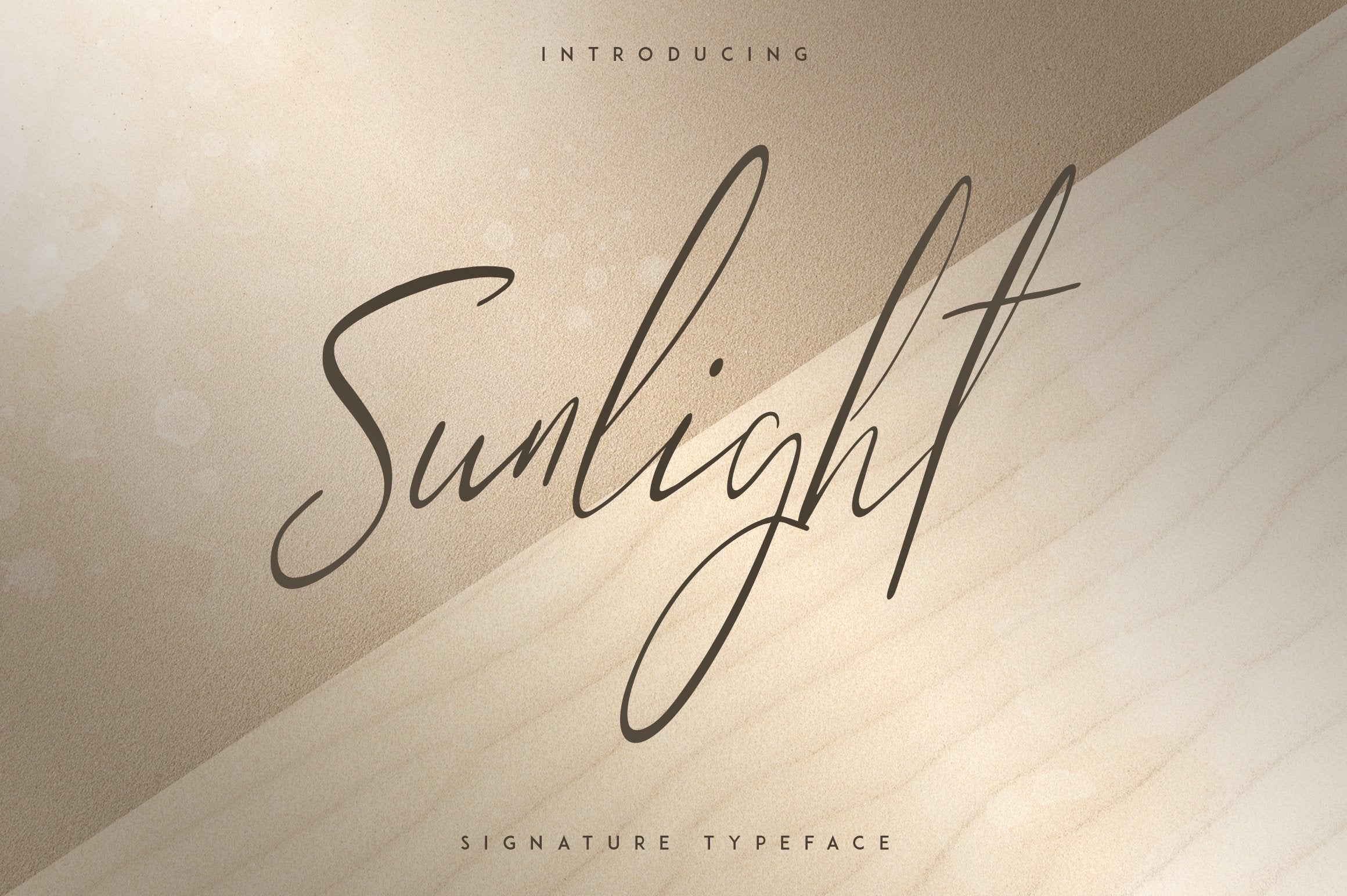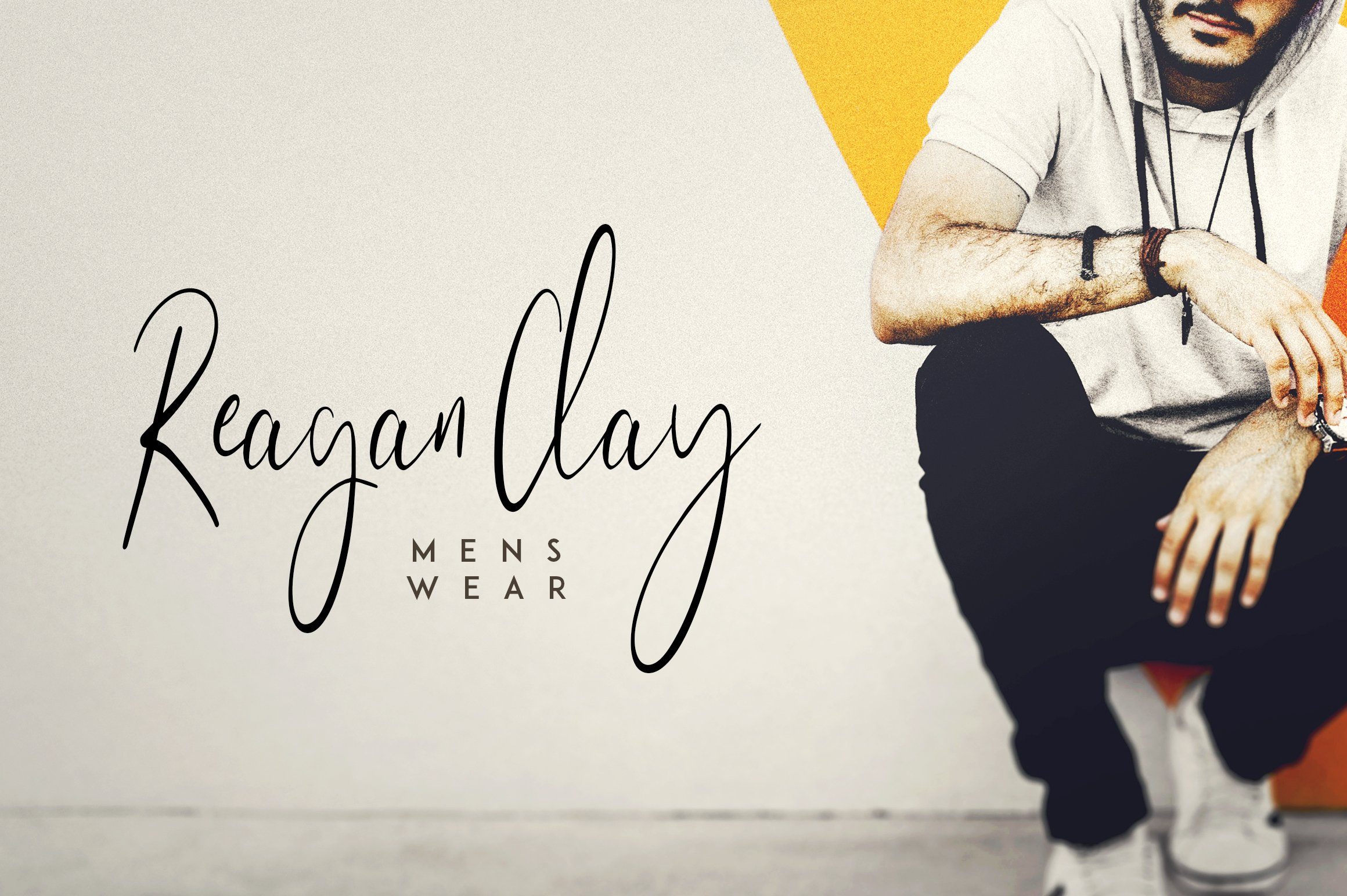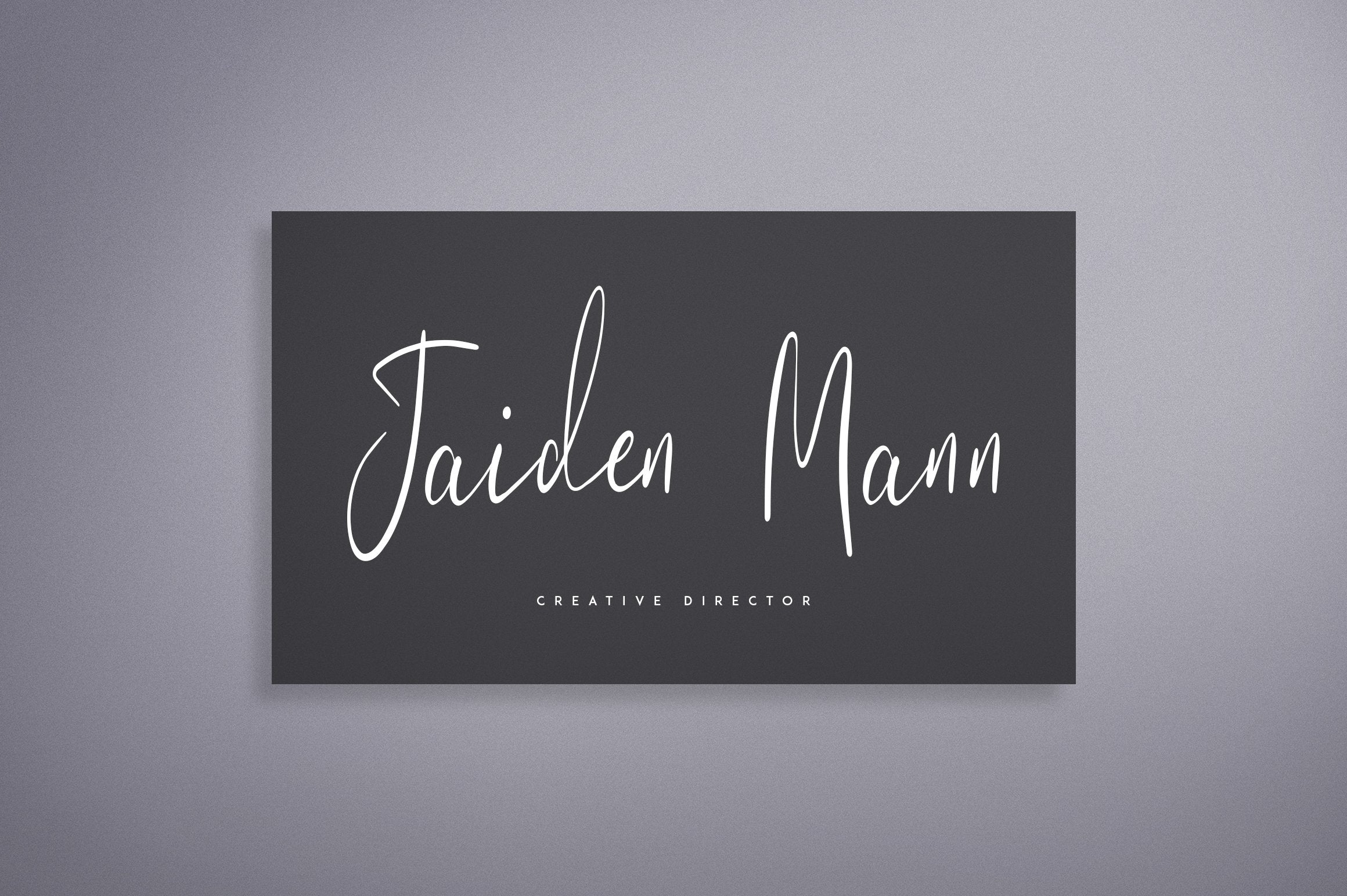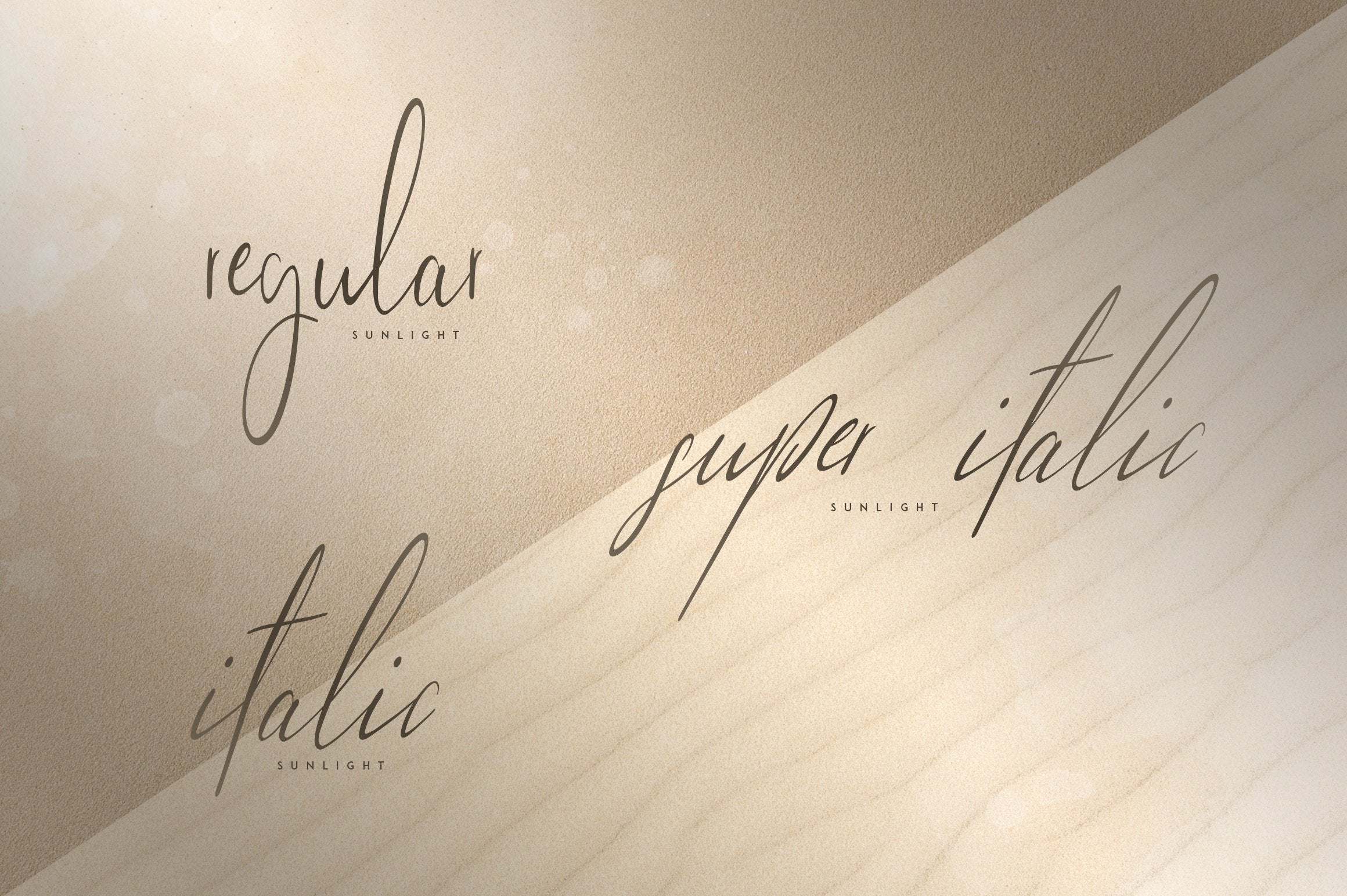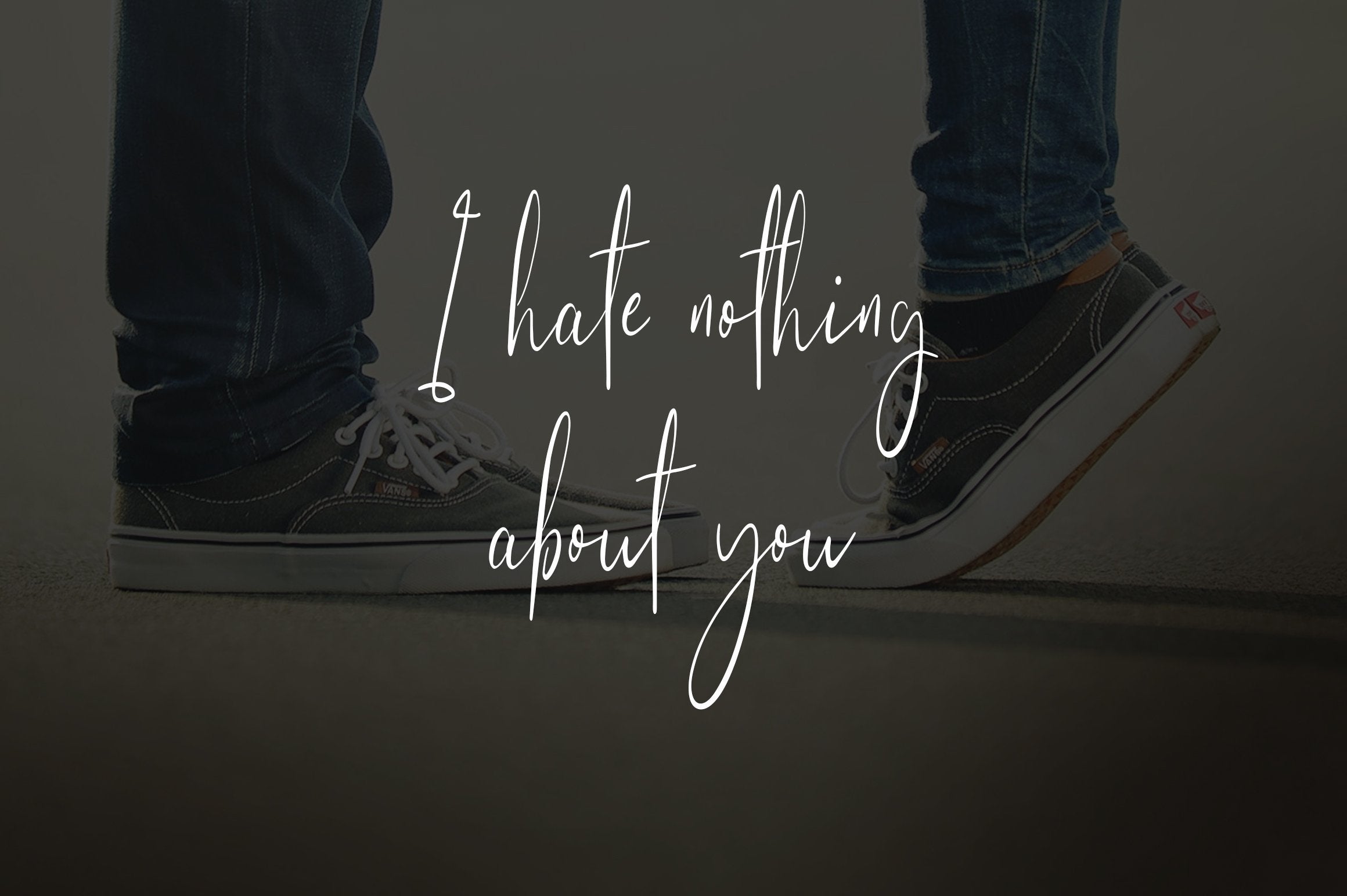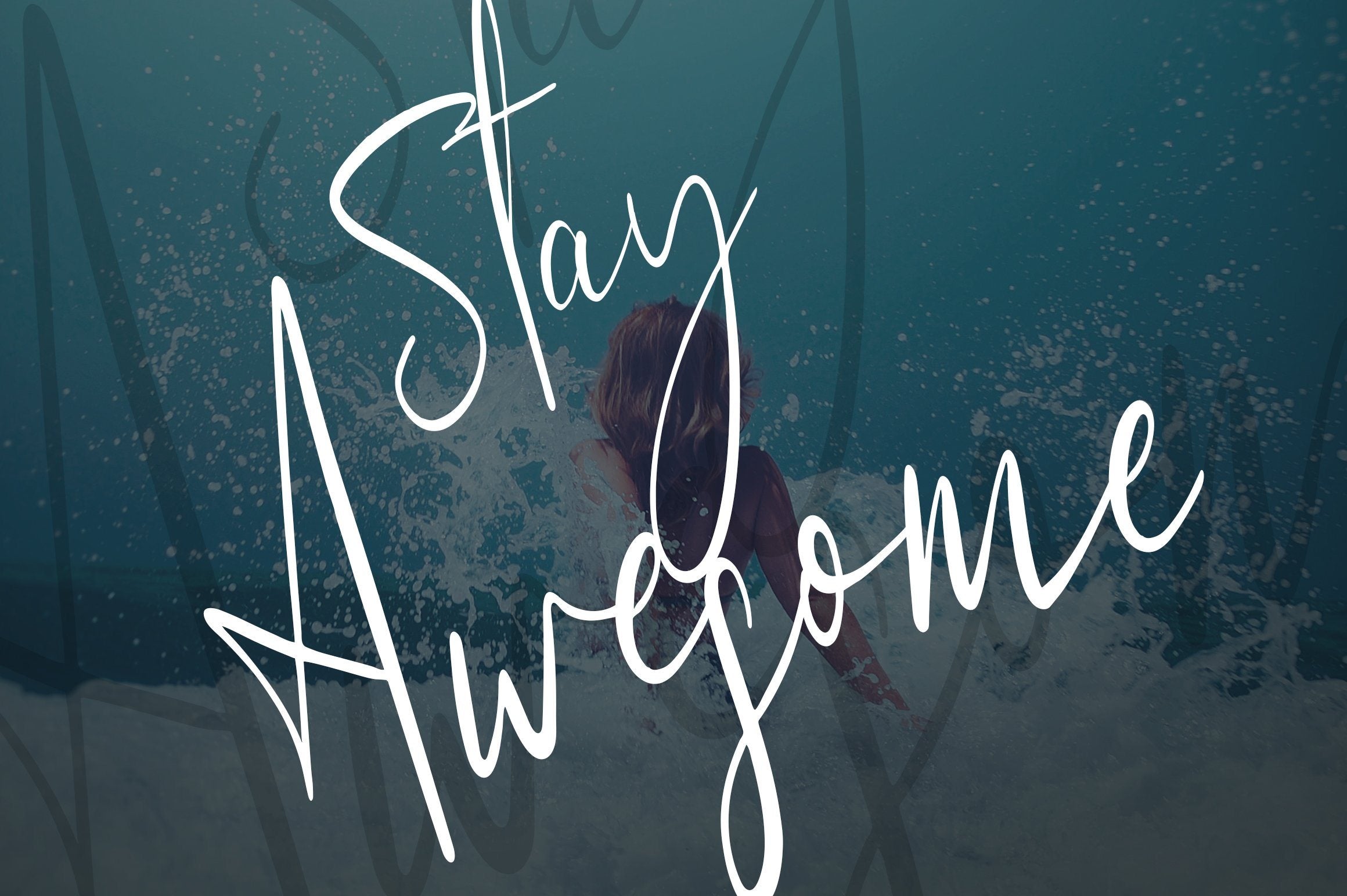
About Sunlight – Signature typeface
Introducing Sunlight Signature typeface Sunlight is signature, clean typeface with 3 styles and multilingual support. It’s a very versatile font that works great in large and small sizes. Sunlight is perfect for branding projects, home-ware designs, product packaging, magazine headers – or simply as a stylish text overlay to any background image. Uppercase,lowercase,numeral,punctuation & Symbol Multilingual Regular Italic Super Italic Ligatures – ll, oo, tt, ee Feel free to contact me if you have any questions! Mock ups and backgrounds used are not included! Thank you! Enjoy!